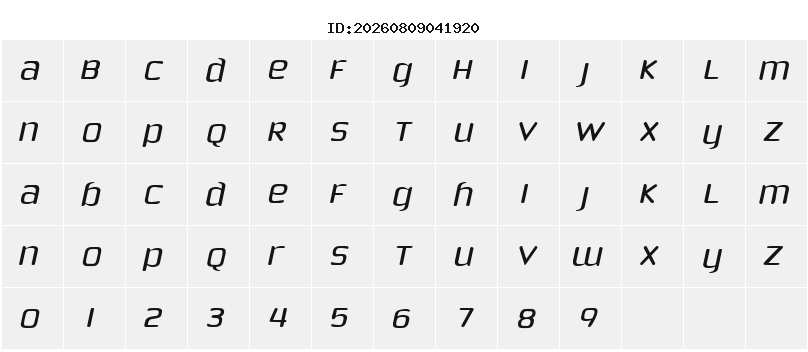
• Font Name: Phoenix Sans
About Phoenix Sans.ttf
Phoenix Sans.ttf is a modern, elegant sans-serif font designed for ultimate readability and visual harmony. Perfect for branding, headlines, web design, and print materials.